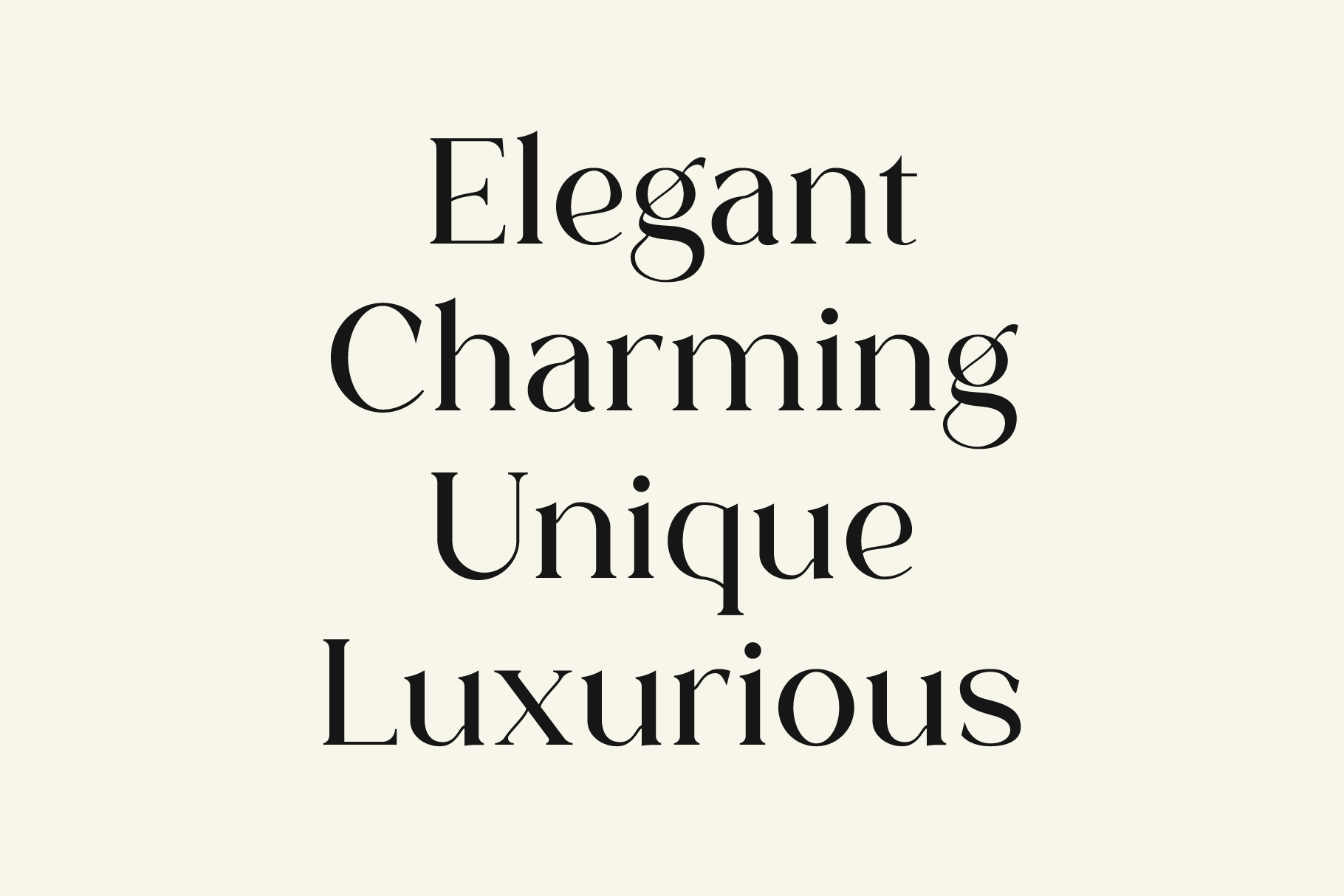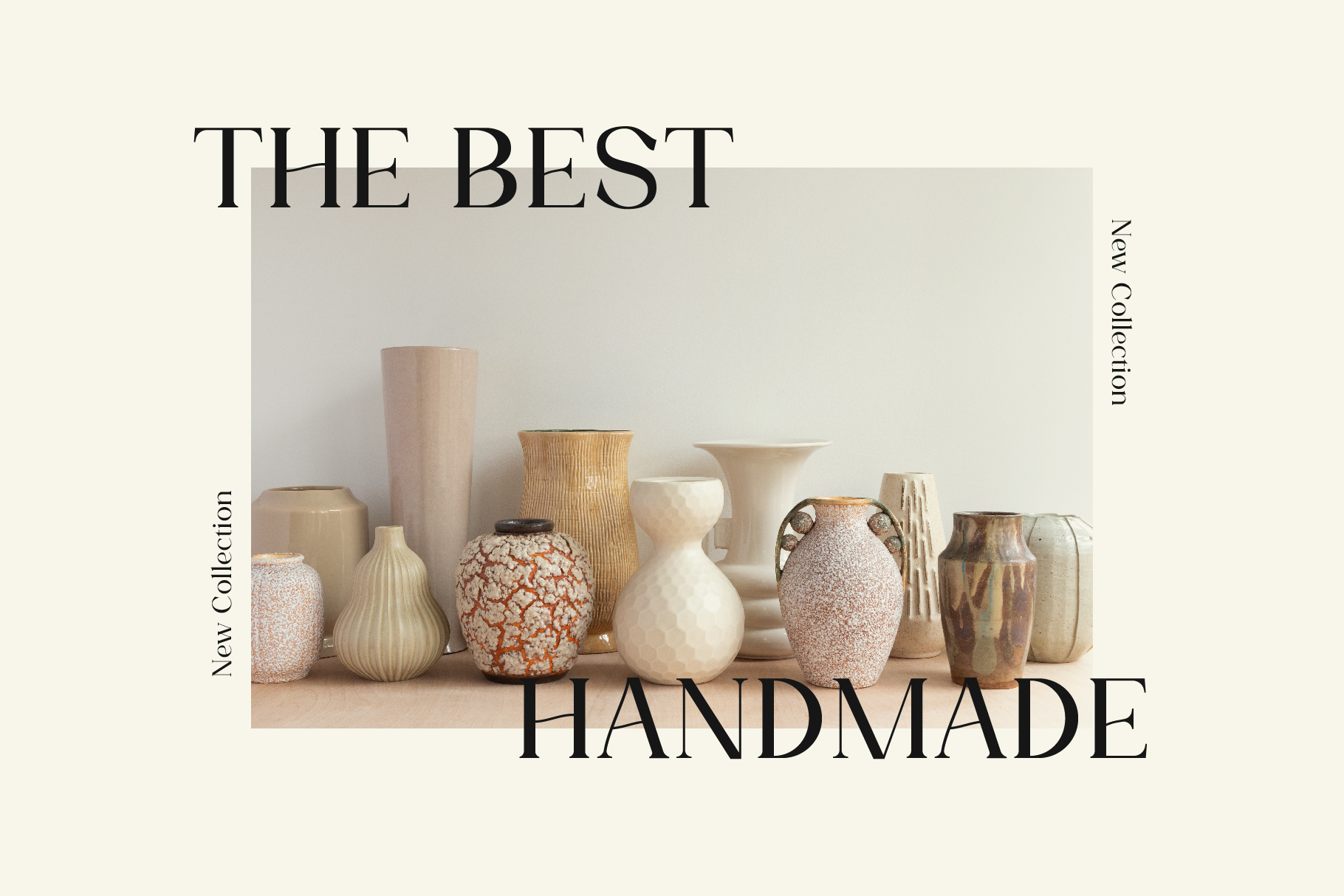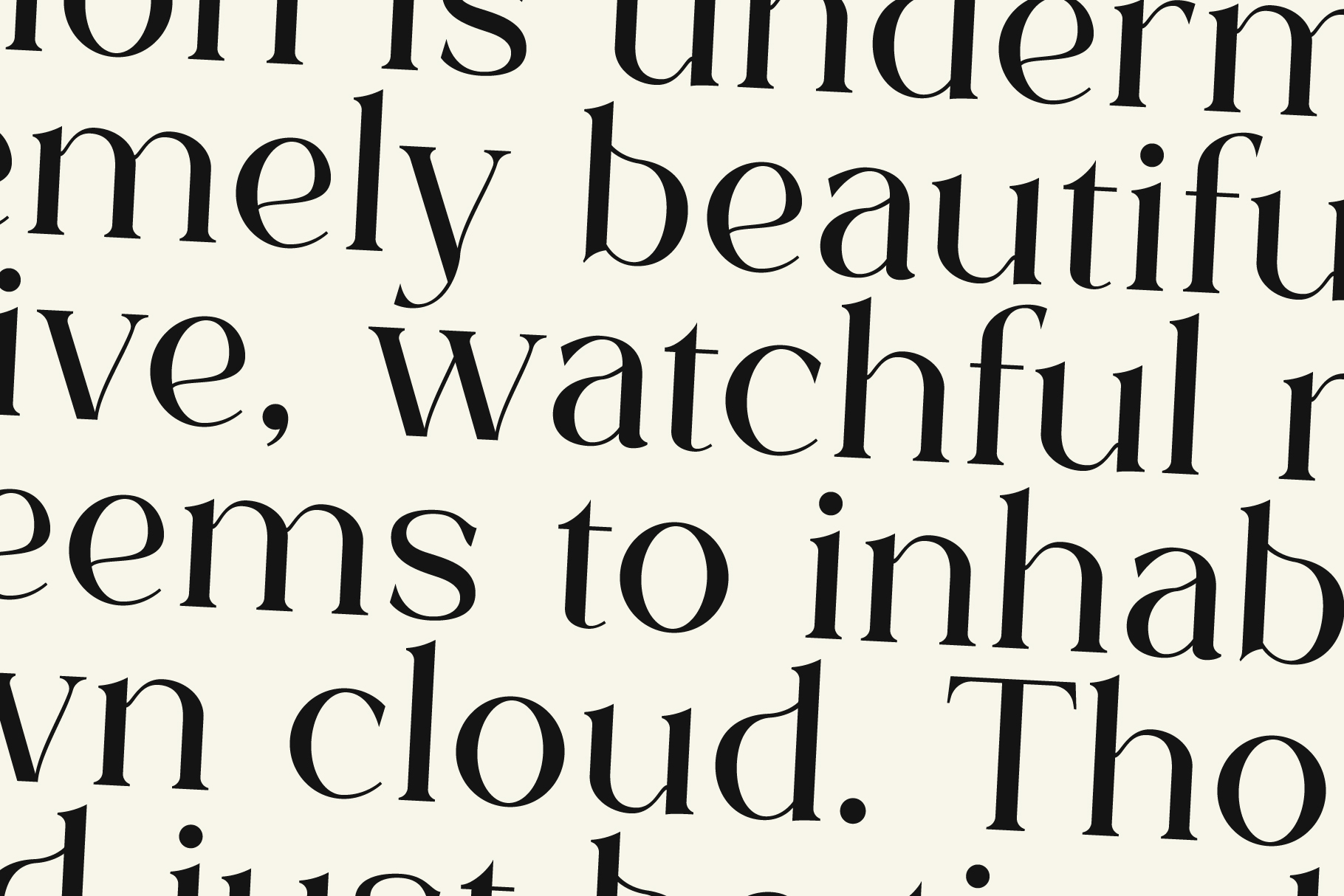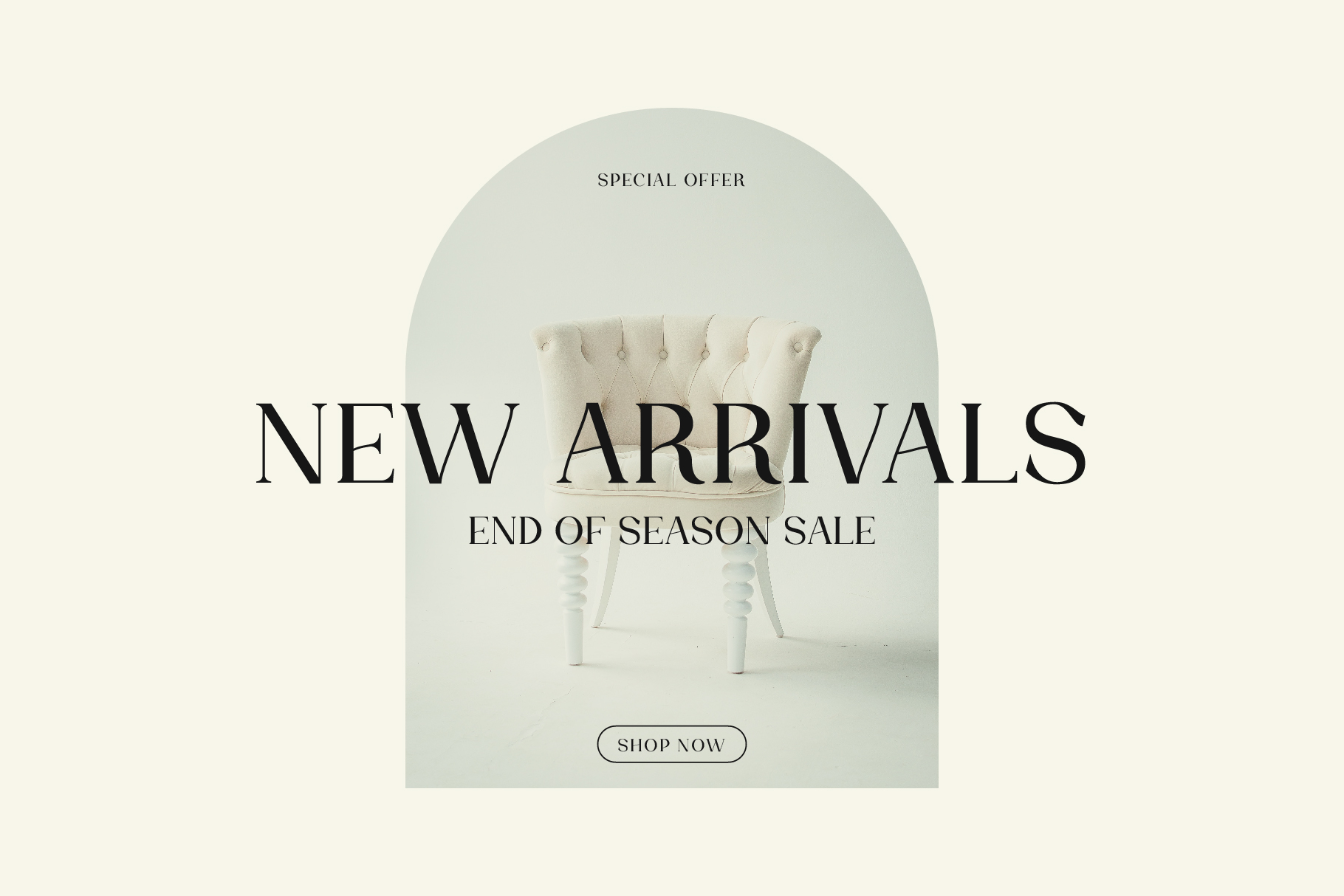
Blureigh Serif Font is a sophisticated, charming serif font with a fashionable touch and unique style. Specially designed for luxury, elegant, feminine projects, this font is perfectly suitable for creating modern, chic designs. Suitable for logos, posters, packaging, branding, invitations, notes, etc.